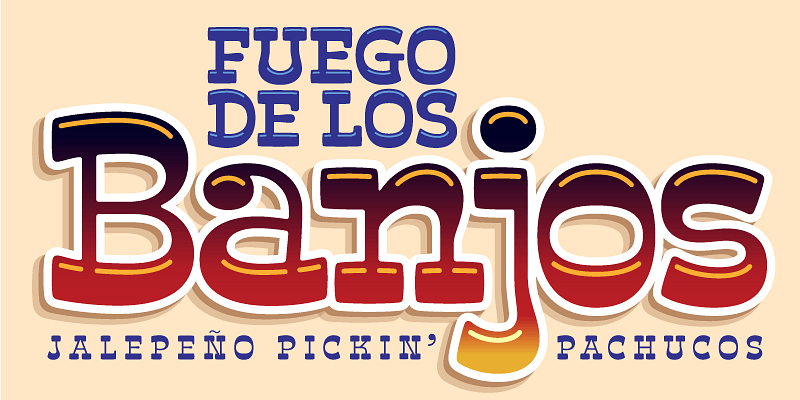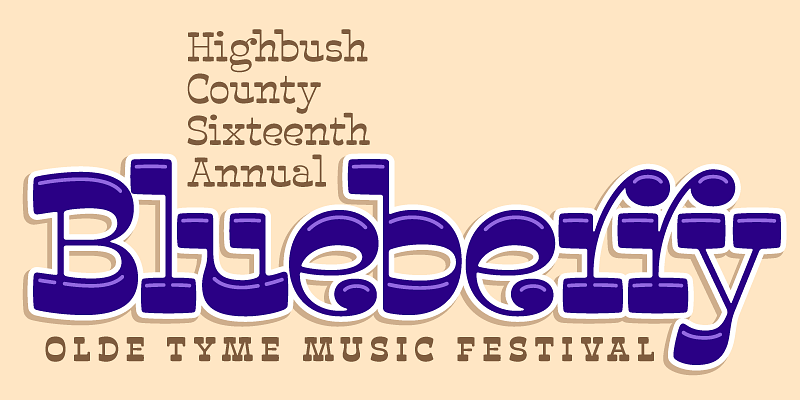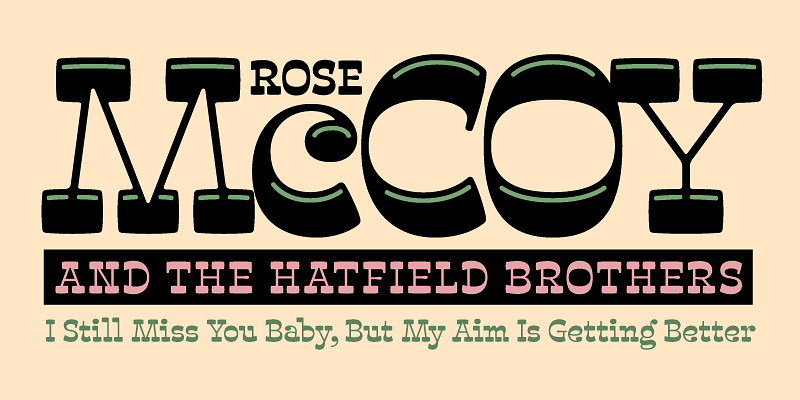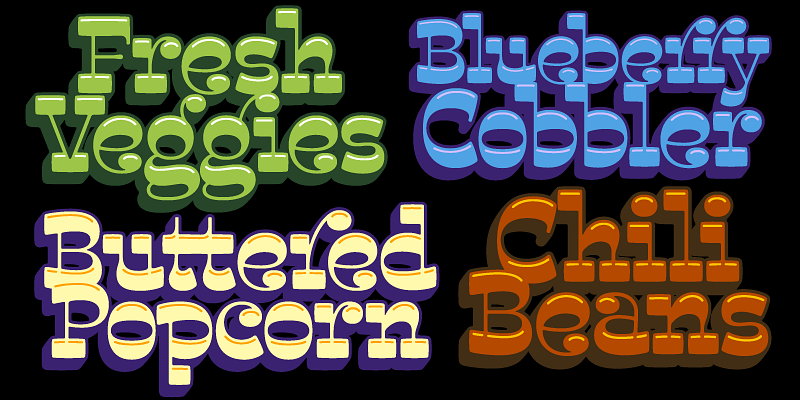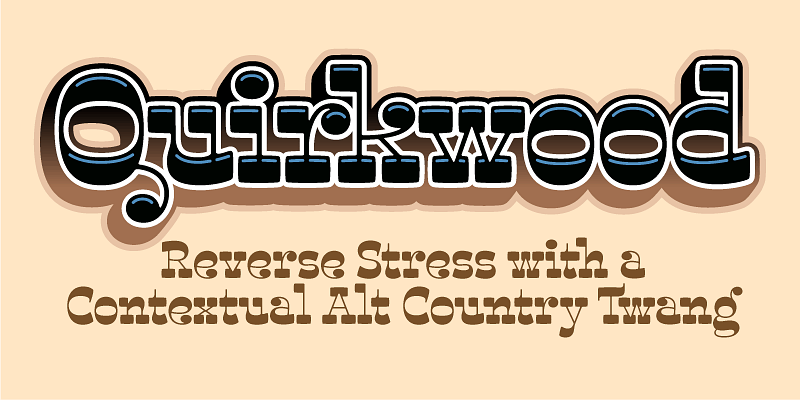
A uniquely sunny and wholesome take on the reverse-stress slab where plenty of unusual elements work hard in the background. Ball endings harmonize with thick soft rectangles, diagonals cut light into thick softnesses, eager open midsections guide the eyeballs, strokes thicken into curled serifs just short of swashing out, and giddy extenders bop along to a quirky beat.